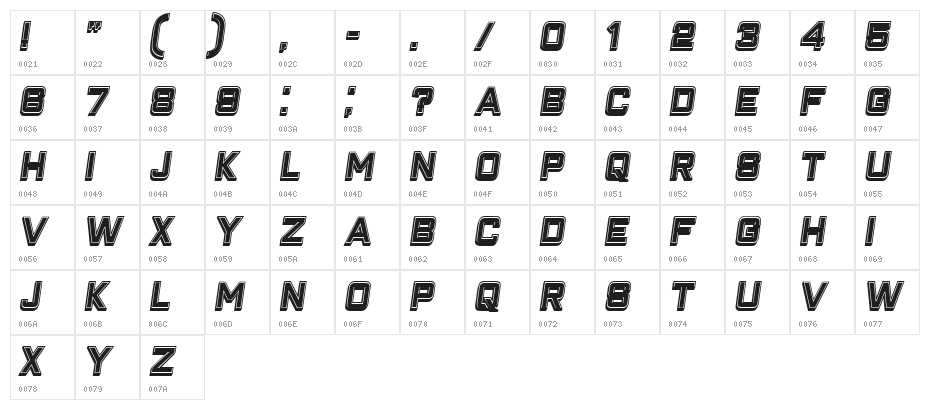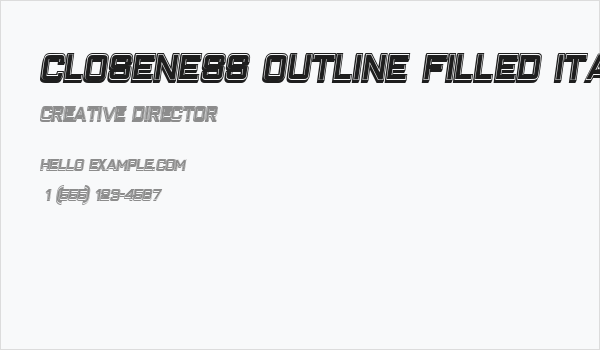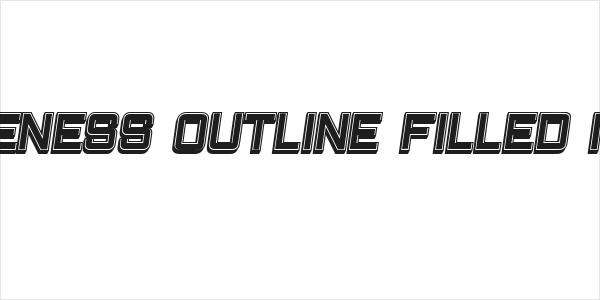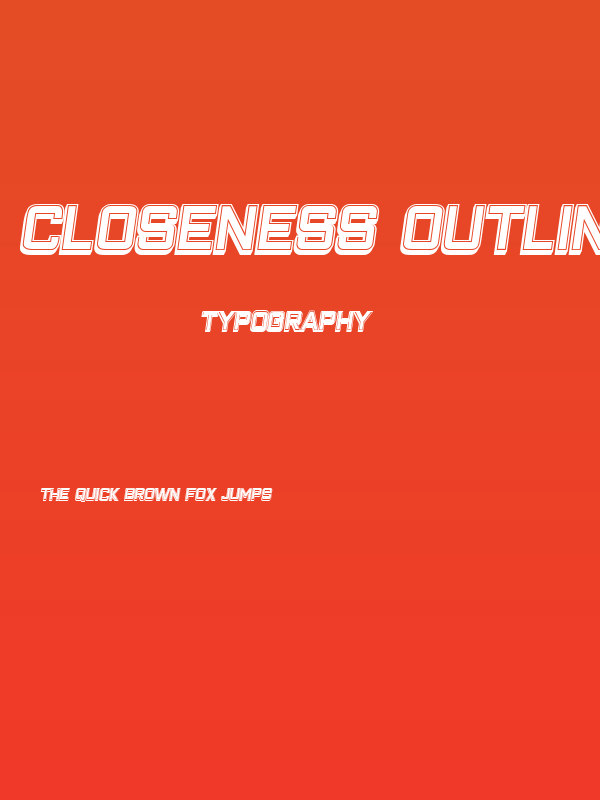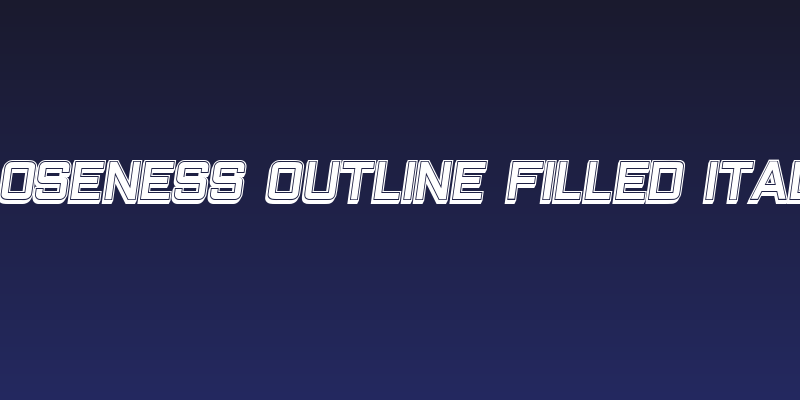
Closeness Outline Filled Italic Font
Closeness Outline Filled Italic Description
This font features a bold, modern design with a distinctive outline and filled style, giving it a three-dimensional appearance. The italicized slant adds a dynamic and forward-moving feel, making it ideal for attention-grabbing headlines and titles. The uppercase letters are prominent and commanding, while the numbers and special characters maintain the same bold outline, ensuring consistency across all text elements. The font's geometric shapes and clean lines contribute to its contemporary aesthetic, making it suitable for various digital and print media applications.
| Proposed Projects | Ideal for sports branding, event posters, video game titles, and dynamic advertising campaigns. |